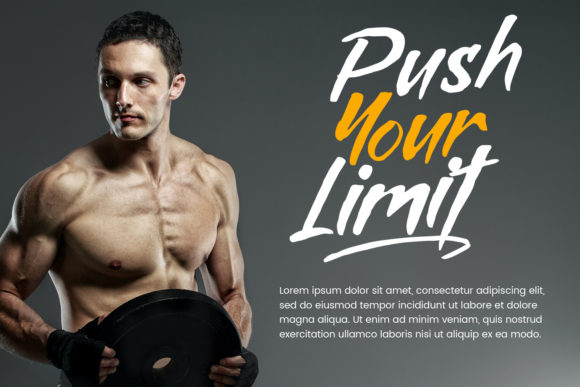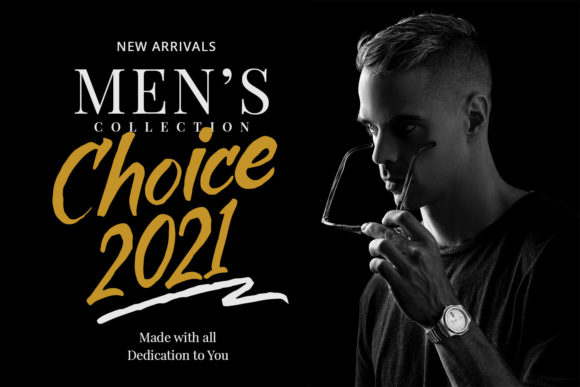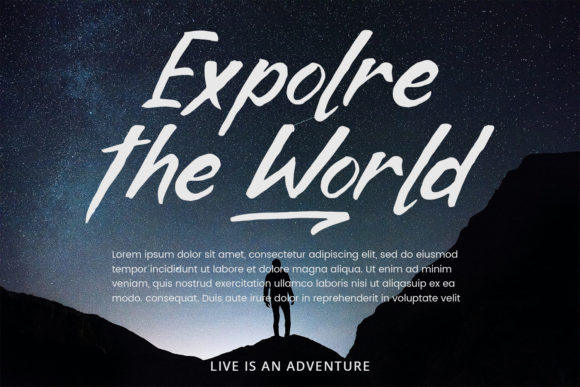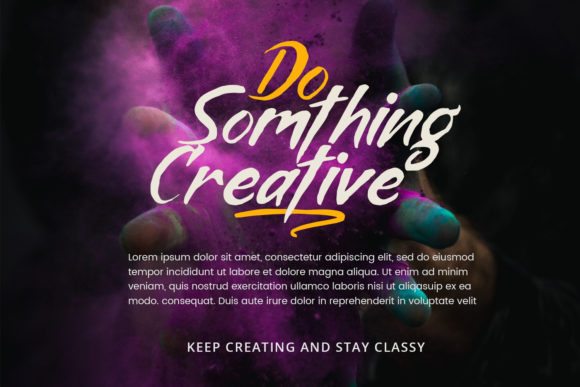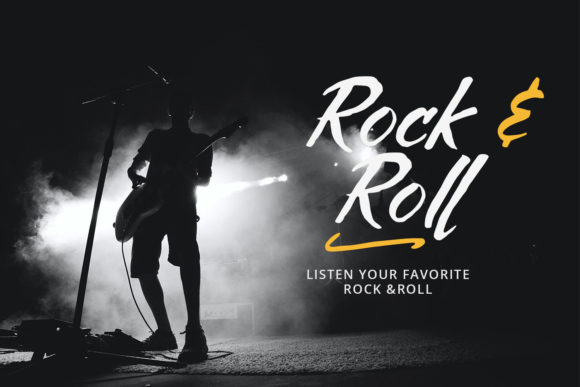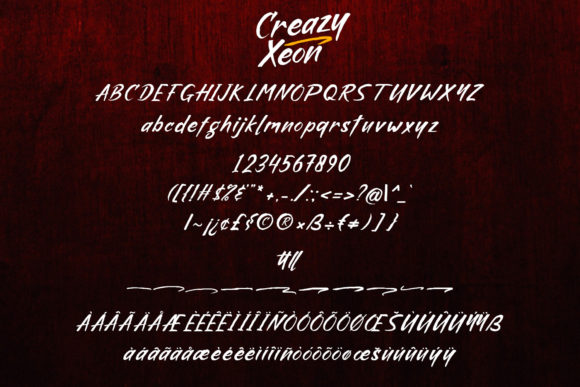
Crazy Xeon Font: Elevate Your Designs with Stylish Graffiti Flair
In the world of typography, fonts play a crucial role in conveying the tone and personality of a design. For designers and crafters looking to add a touch of urban grit and style to their creations, the Crazy Xeon Font is an excellent choice. This stylish graffiti brushed display font is inspired by street art, making it a versatile and valuable addition to any font library.
The Inspiration Behind Crazy Xeon Font
Crazy Xeon Font draws its inspiration from the vibrant and dynamic world of street art. Graffiti has long been a powerful form of self-expression, allowing artists to convey their message and showcase their creativity in public spaces. The font’s design captures the essence of this art form, with bold, expressive brushstrokes that give it a unique and edgy feel.
Key Features of Crazy Xeon Font
- Stylish Graffiti Brushed Display Font: Crazy Xeon Font boasts a distinctive, hand-brushed style that sets it apart from more traditional fonts.
- Versatile and Adaptable: Whether you’re working on a poster, logo, or social media graphic, Crazy Xeon Font can be used to add a touch of personality and flair to your design.
- Inspired by Street Art: The font’s street art inspiration gives it a bold, urban feel that’s perfect for designers looking to add some edge to their creations.
Why Choose Crazy Xeon Font?
So why should designers and crafters choose Crazy Xeon Font for their projects? Here are just a few compelling reasons:
- Elevate Your Designs: With Crazy Xeon Font, you can add a touch of sophistication and style to your designs, setting them apart from more generic and bland typography.
- Perfect for a Variety of Projects: Whether you’re working on a commercial project or a personal craft, Crazy Xeon Font is versatile enough to be used in a wide range of applications.
Tips for Using Crazy Xeon Font
To get the most out of Crazy Xeon Font, here are a few tips to keep in mind:
- Experiment with Different Sizes: Crazy Xeon Font looks great in a variety of sizes, from large display text to smaller, more intricate details.
- Combine with Other Fonts: Don’t be afraid to pair Crazy Xeon Font with other fonts to create a unique and visually appealing typographic combination.
- Play with Color: The bold, expressive style of Crazy Xeon Font lends itself well to bright, bold colors – don’t be afraid to get creative and try out different hues and combinations.
In conclusion, Crazy Xeon Font is a stylish and versatile graffiti brushed display font that’s perfect for designers and crafters looking to add a touch of urban grit and style to their creations. With its bold, expressive brushstrokes and adaptable design, this font is sure to become a valuable addition to any font library. So why not give Crazy Xeon Font a try and see how it can elevate your designs?